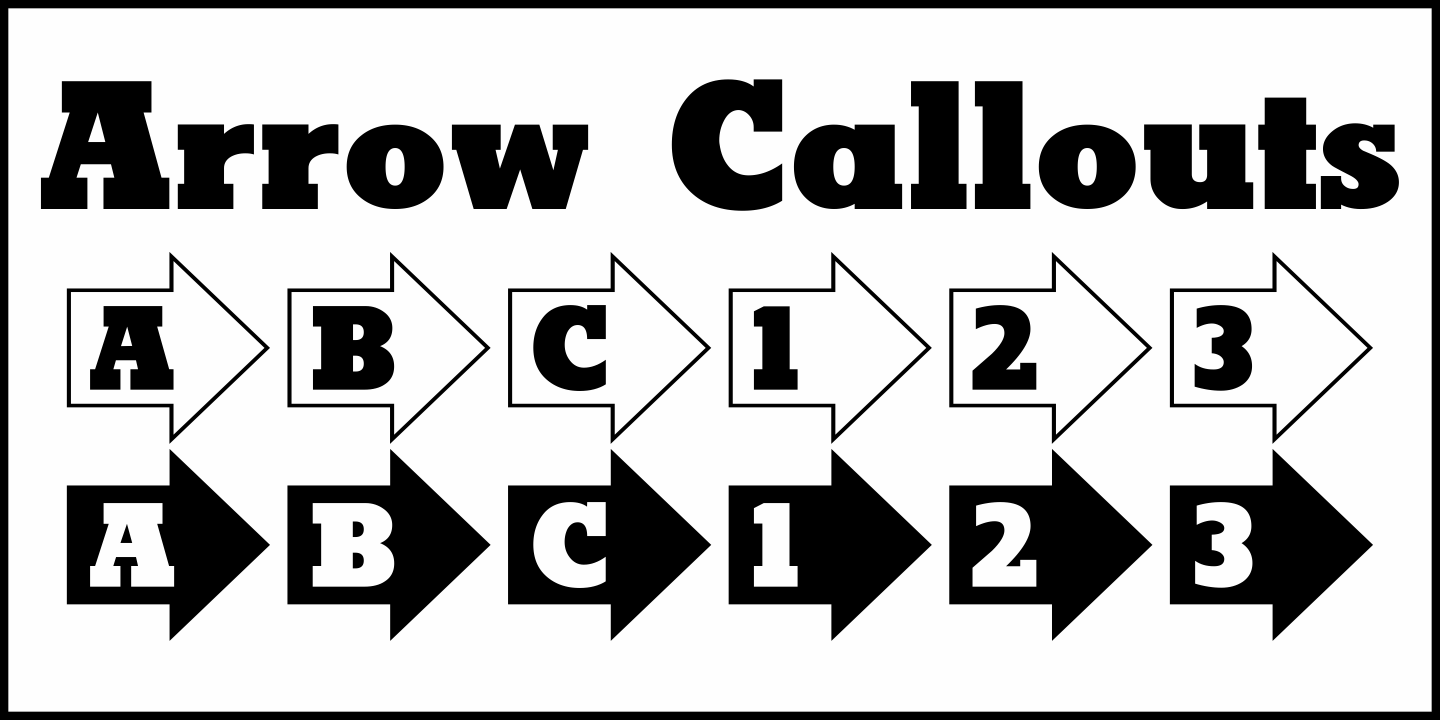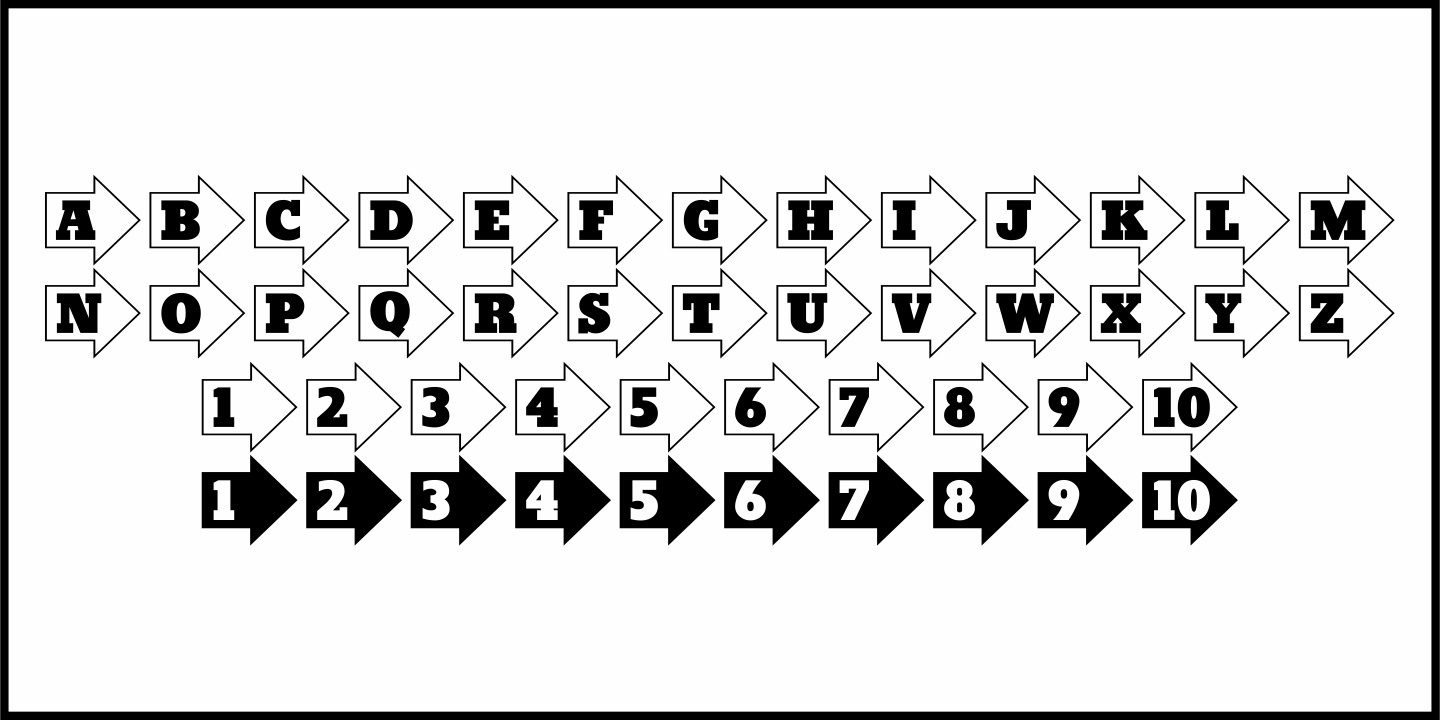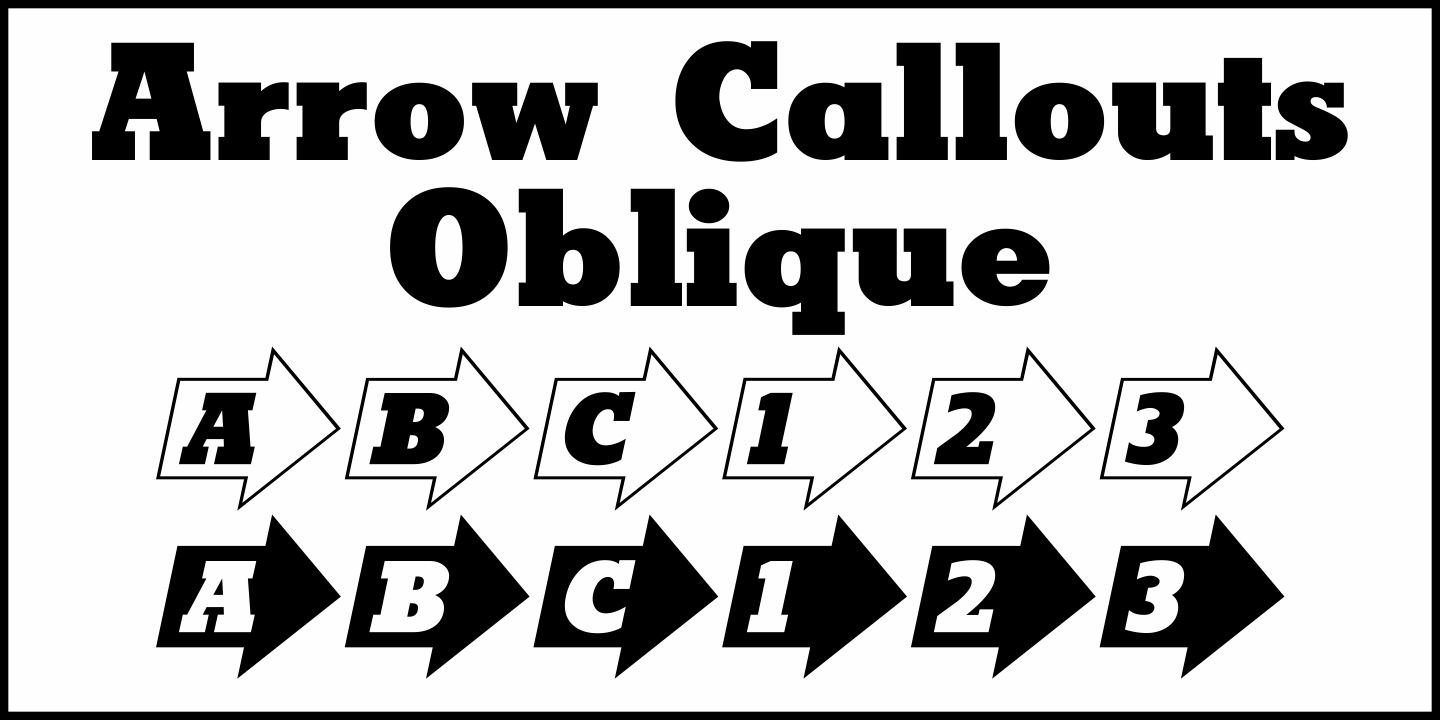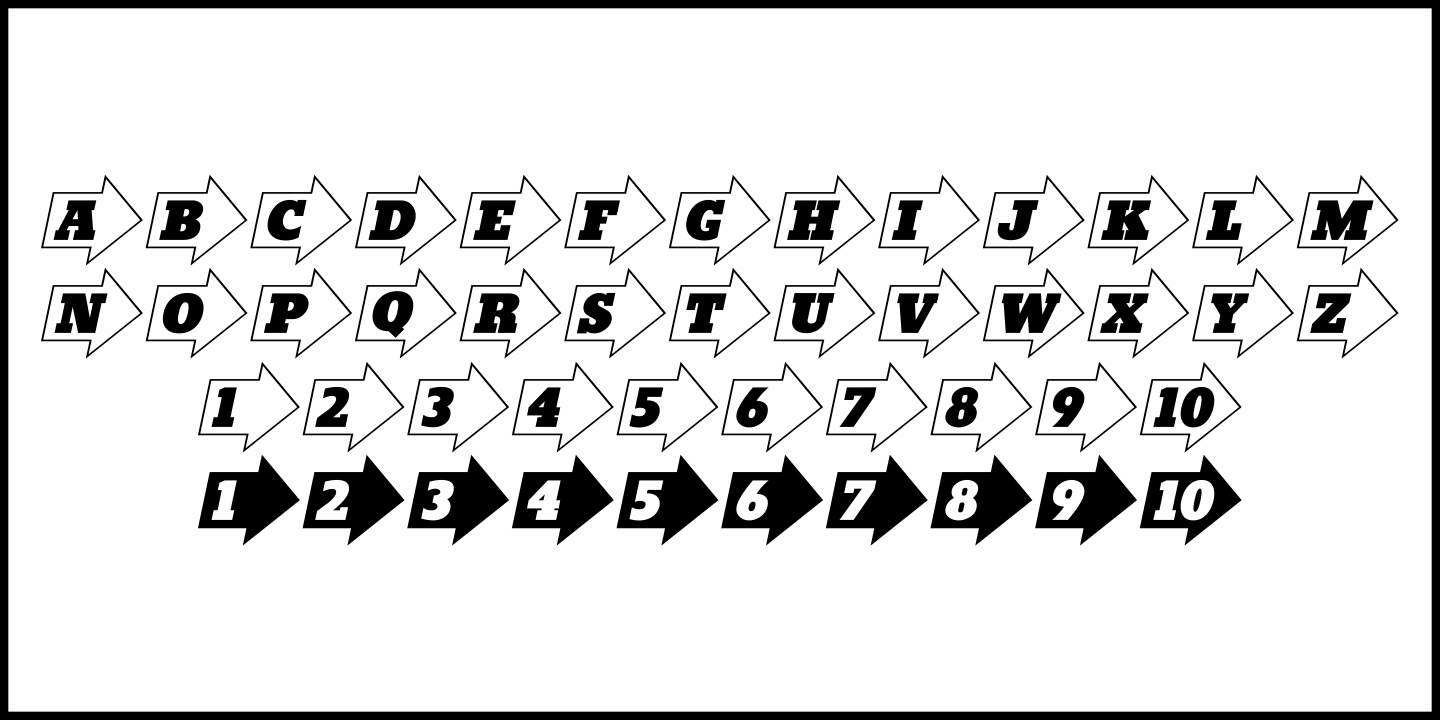
Arrow Callouts
Here's a set of arrow shaped callouts in two varieties within one font. The black-on-white letters are on the upper case keys, and the white-on-black characters are on the lower case keys.
The numerals 1 thru 10 in black-on-white are in the standard key positions, while the white-on-black numbers are on the same keys when engaging the 'shift” key. The 'zero' key houses the number '10'.
For a more dynamic look, the font is also available in an oblique version.